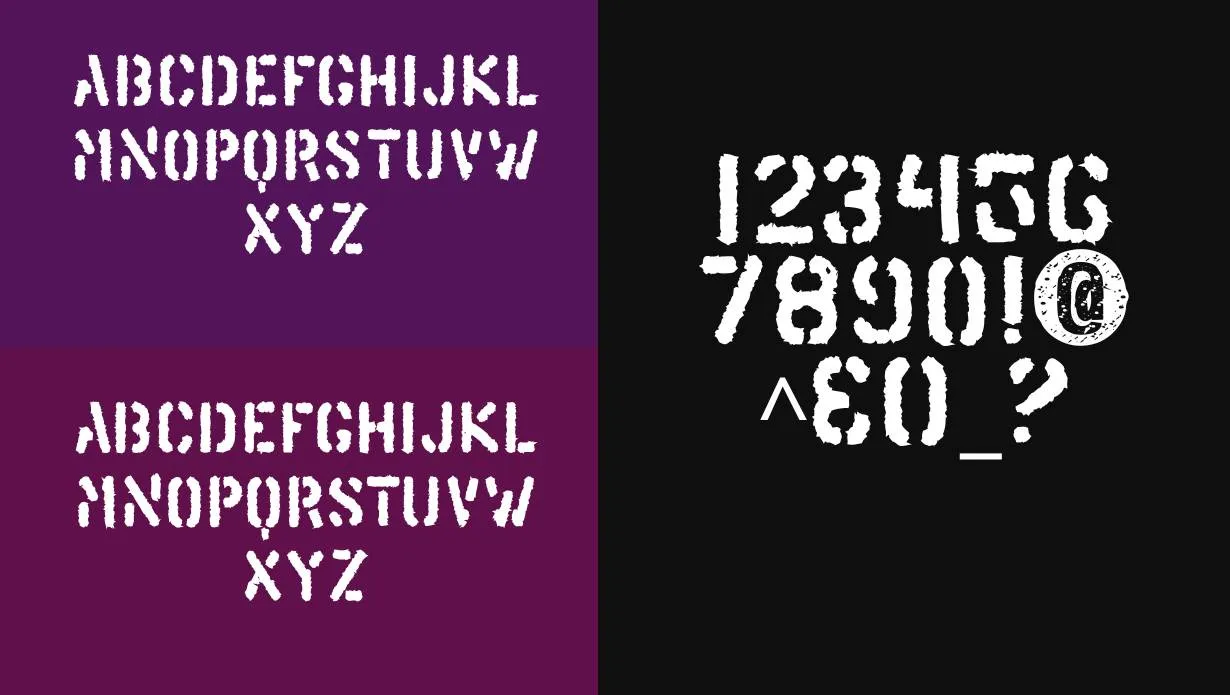
Road Crew Font is a bold and rugged typeface that evokes a sense of strength and toughness. With its solid lines and sturdy appearance, it’s commonly used in creating signage for construction companies, off-road events, and rugged outdoor-themed graphics.
| Name | Road Crew Font |
| Designer | Pavel Larin |